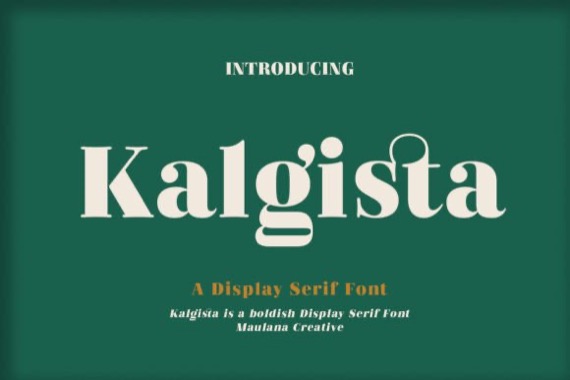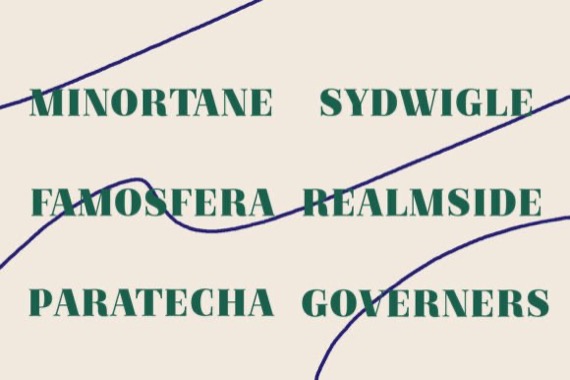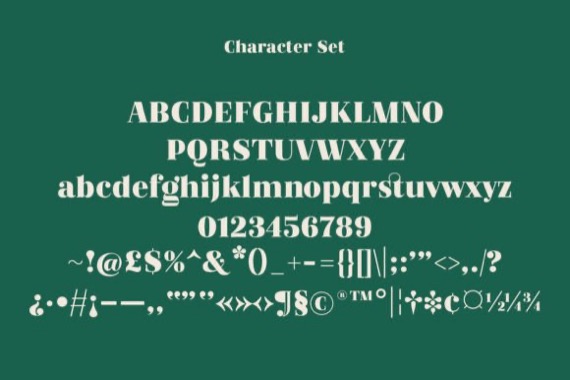
Kalgista is a modern condensed concave serif display font that was created and shared by Maulana Creative. It is good for logo design, social media, movie titles, books titles, invitations, web design and more.
Kalgista Display Serif Font
Designer, Publisher: Maulana Creative